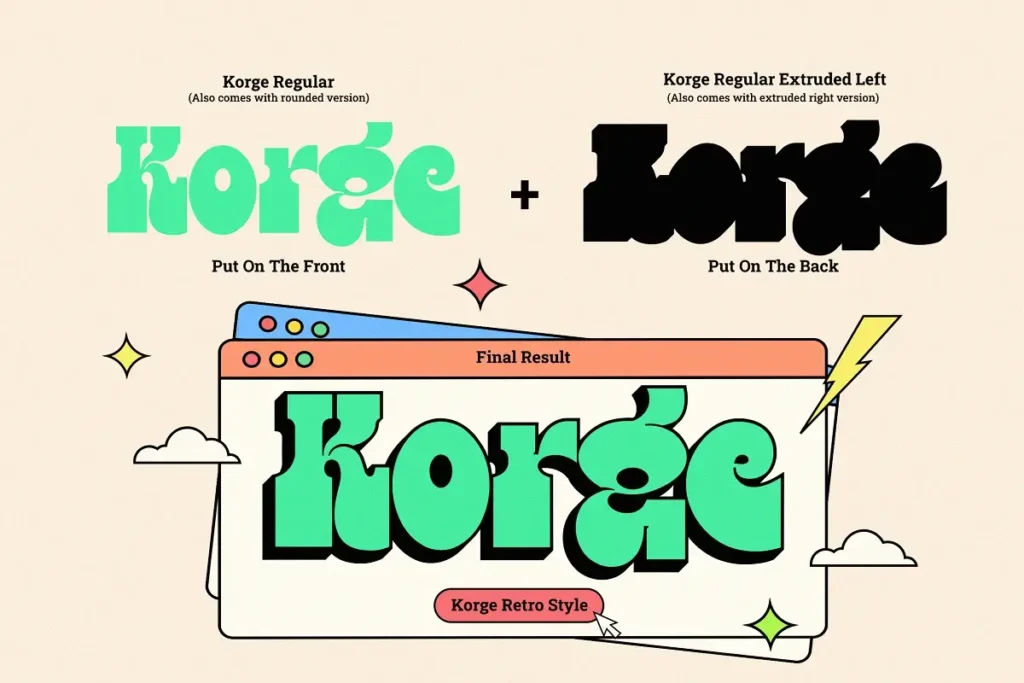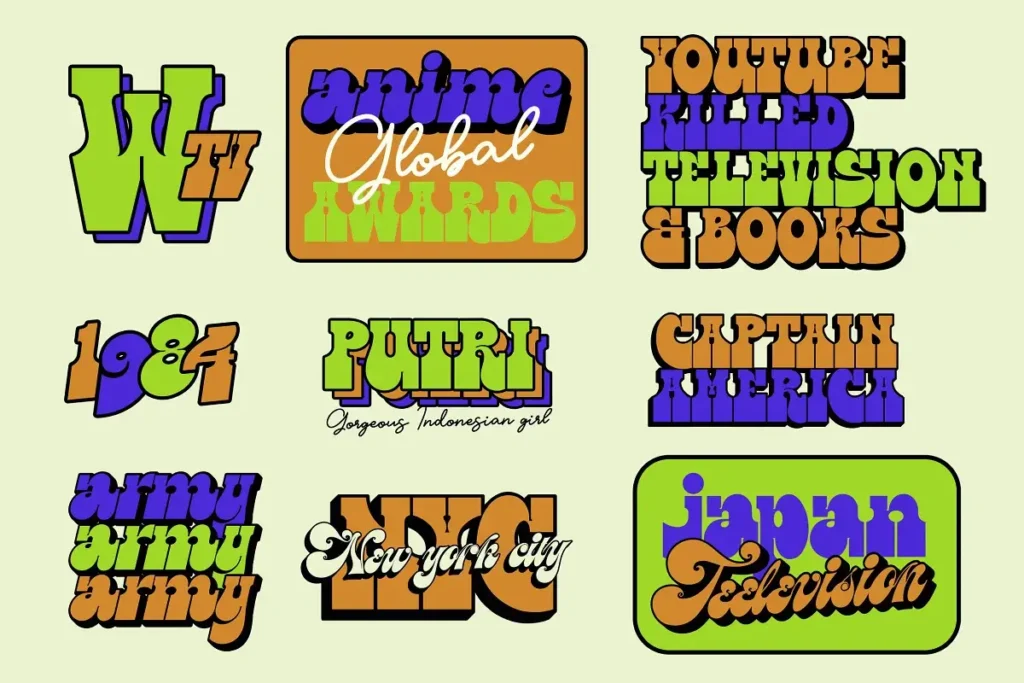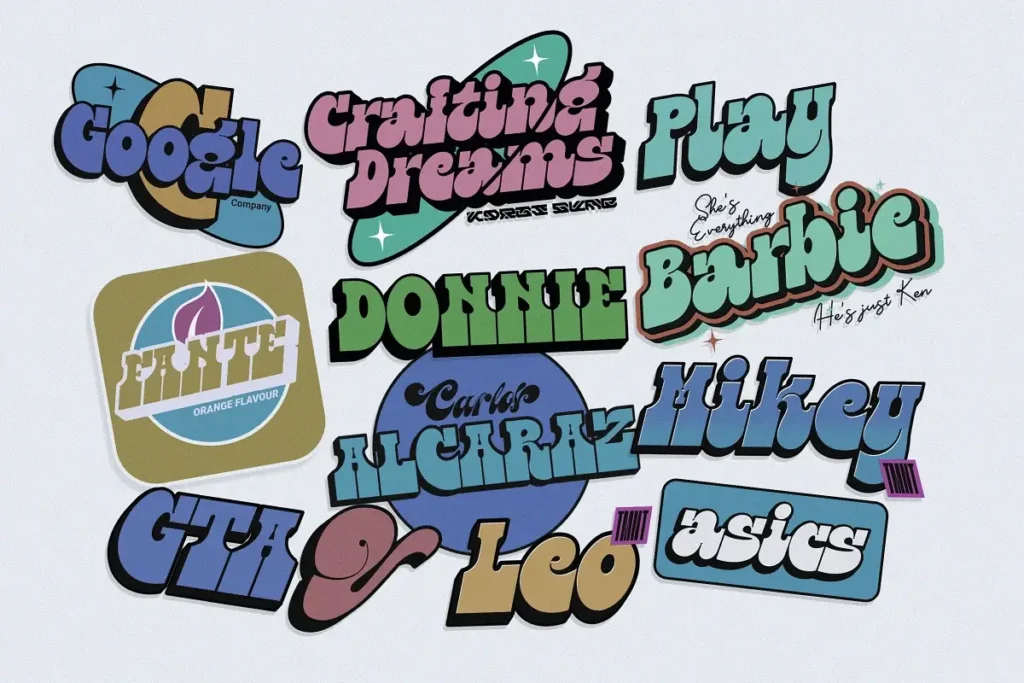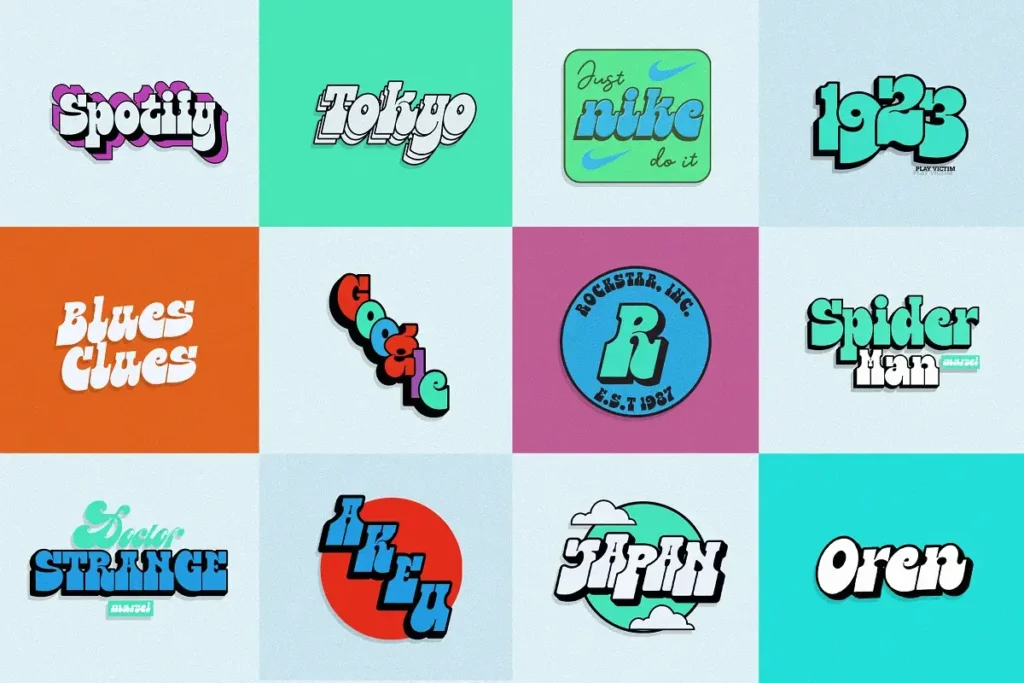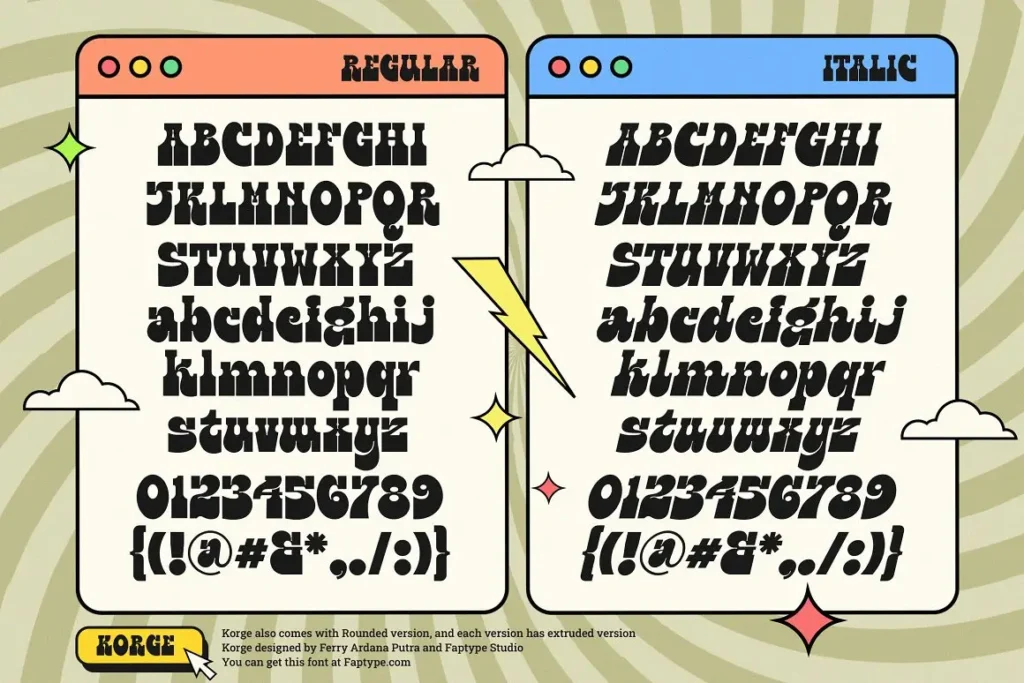
Korge is a captivating free retro bold slab serif font merging vintage charm with modern function. Its bold serifs evoke nostalgia while offering a trio of styles – commanding regular, softer rounded, and eye-catching extruded versions.
This font speaks a universal design language with multi-language support and PUA encoding, transcending borders effortlessly. From logos to posters, Korge adapts seamlessly to various projects, demanding attention and style.
Featuring a full set of characters, OpenType features, and 237 total glyphs across styles, Korge invites creative exploration. Ready to infuse timeless elegance into your designs? Discover Korge’s limitless possibilities where classic meets contemporary allure.
Korge Free Bold Slab Serif Logo Font